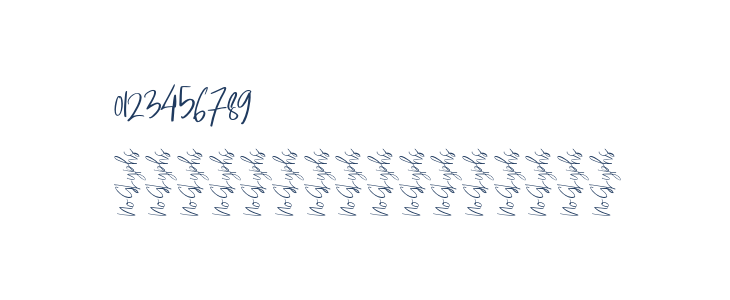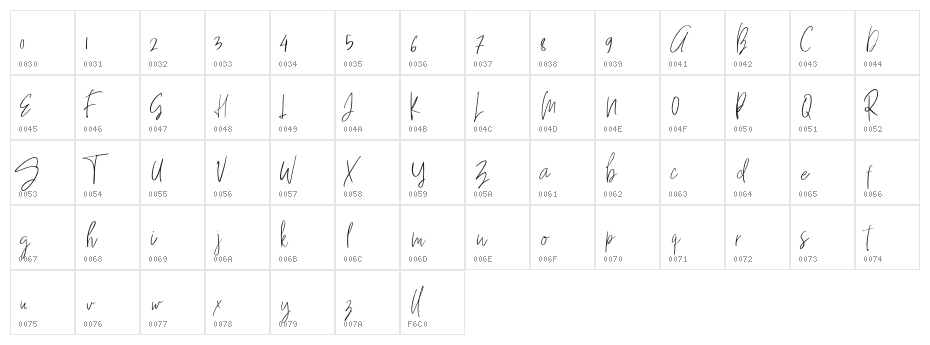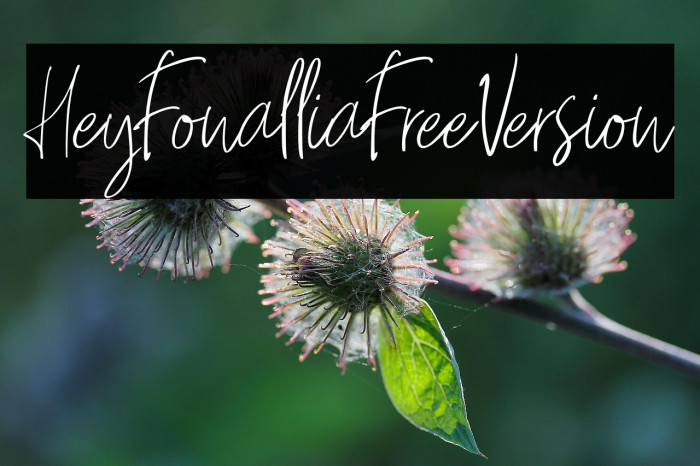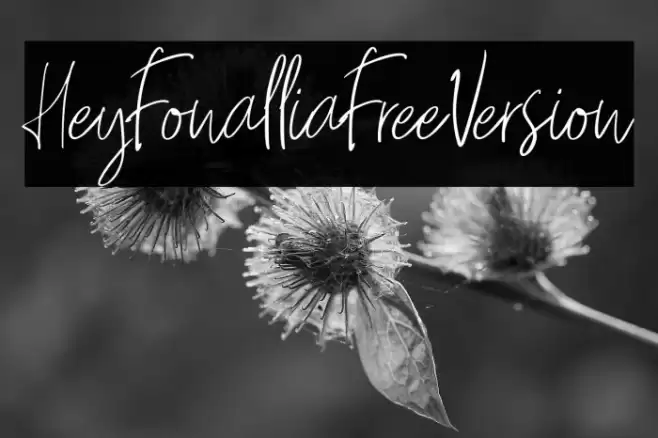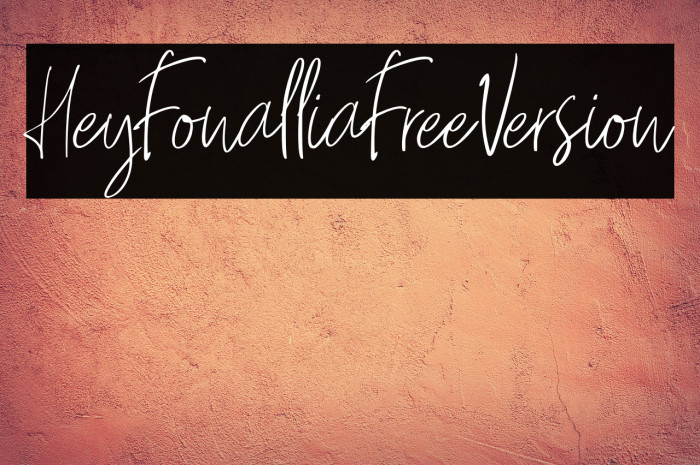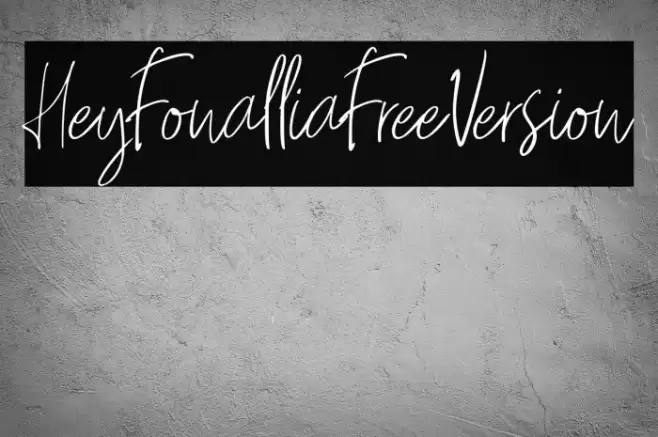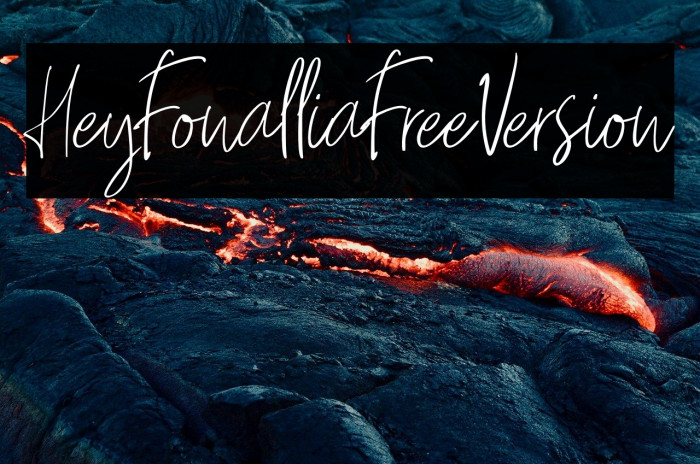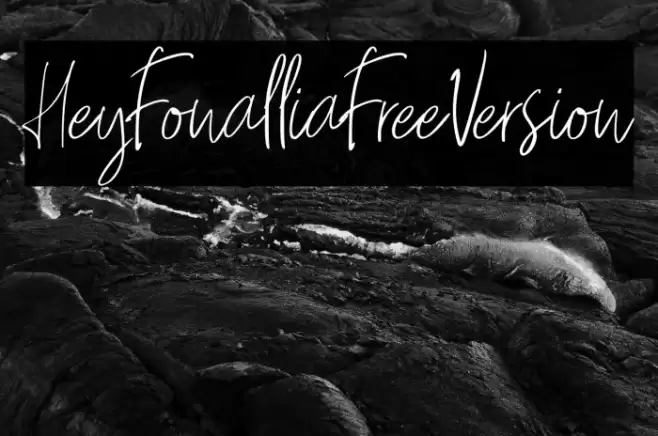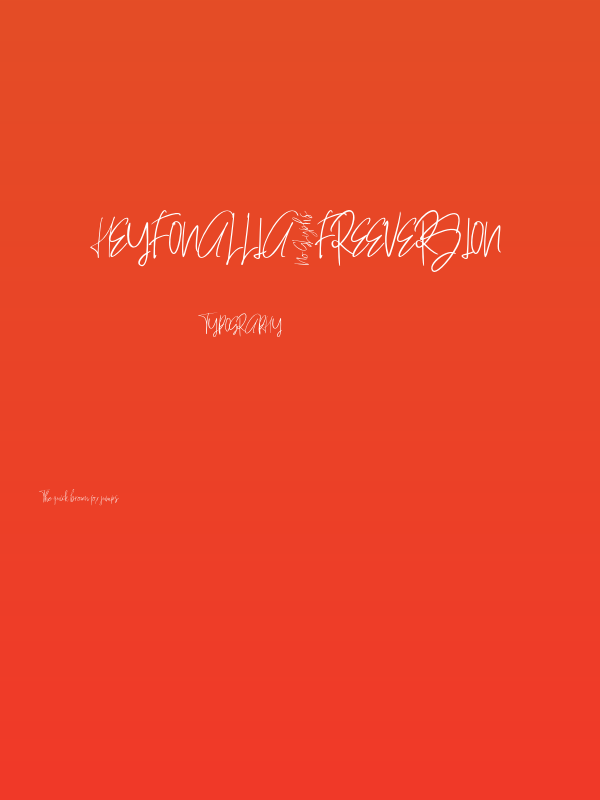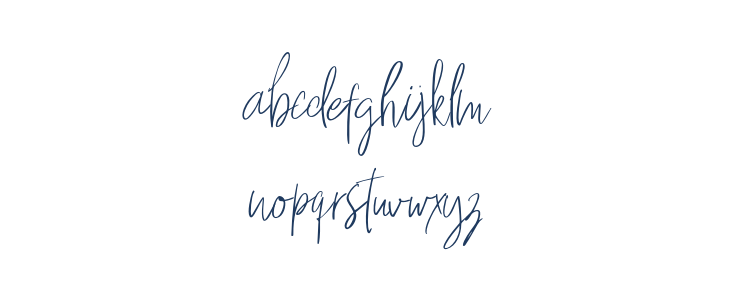
HeyFonallia-FreeVersion Font
HeyFonallia-FreeVersion Description
This font exudes a modern, handwritten style with a casual and artistic flair. The characters are elegantly crafted with a flowing, cursive touch, giving it a personal and expressive feel. The uppercase letters are bold and dynamic, while the lowercase letters maintain a consistent fluidity. The numerals are clear and distinct, complementing the overall aesthetic. Special characters are seamlessly integrated, adding versatility to the font. The strokes are smooth and slightly varied in thickness, enhancing the handwritten appearance. This font is perfect for projects that require a personal touch, such as invitations, greeting cards, or creative branding.
| Proposed Projects | Ideal for invitations, greeting cards, personal branding, and creative projects. |